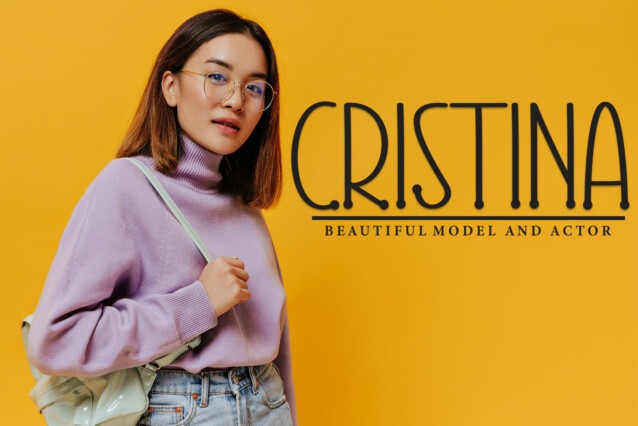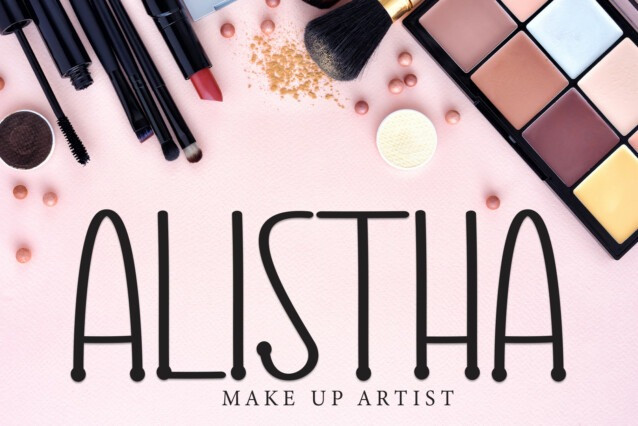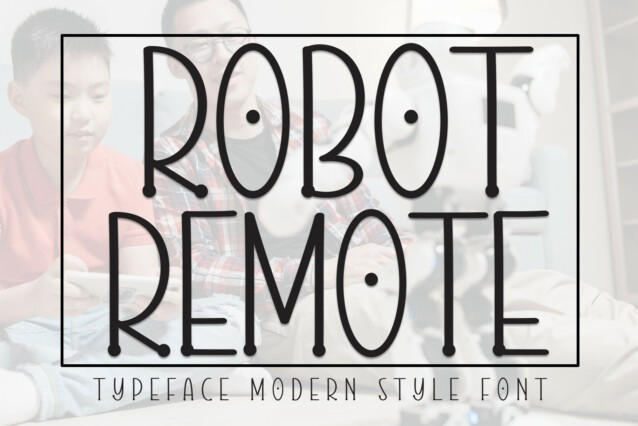
Robot Remote Font
Robot Remote Font a sweet and friendly handwritten font. Cute and fun, this font is ideal for writing wedding invitations, cards, or any other design that might need a fun touch!